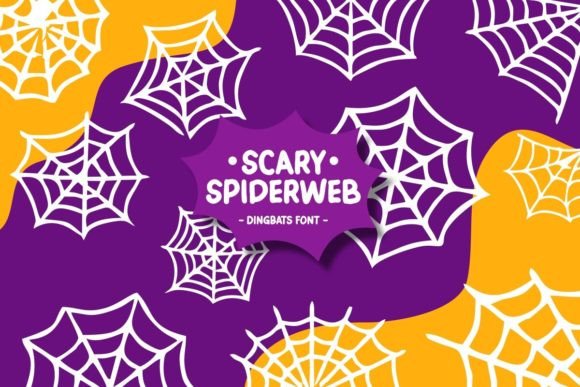
Are you ready to take your Halloween-inspired projects to the next level? Look no further than the Scary Spider Web Font, a mesmerizing creation by Pian45 that will bring an eerie and enchanting touch to your designs. This dingbats font is the perfect addition to your collection, allowing you to unleash your creativity and captivate your audience with its intricate spider web designs and spooky Halloween elements.
The Scary Spider Web Font is not just any font – it's a meticulously crafted masterpiece that will elevate your designs and make them stand out from the crowd. With its captivating and unique collection of dingbats, you can effortlessly add a touch of spooky delight to your flyers, posters, invitations, and more. Let your imagination run wild as you weave a web of creativity with this font.
Designed with the utmost attention to detail, the Scary Spider Web Font offers a wide range of possibilities for your Halloween-themed projects. Whether you're working on a haunted house flyer or a spooky party invitation, this font will lend an air of mystery and excitement to your designs. Your audience won't be able to resist the allure of its intricate spider web patterns and spooky Halloween elements.
Not only does the Scary Spider Web Font offer stunning visuals, but it also boasts exceptional functionality. Its seamless integration with design software and platforms like Cricut makes it the best font for all your crafting needs. Say goodbye to mediocre fonts that fail to leave an impression and embrace the power of this keyword-rich masterpiece.